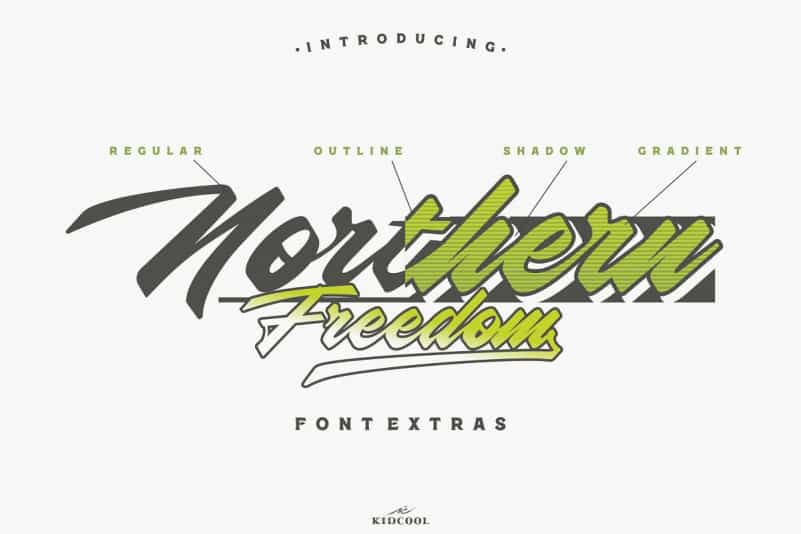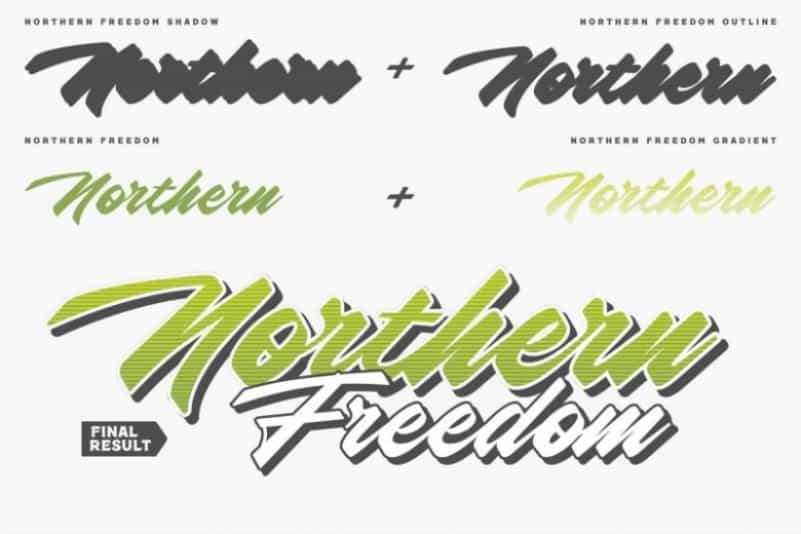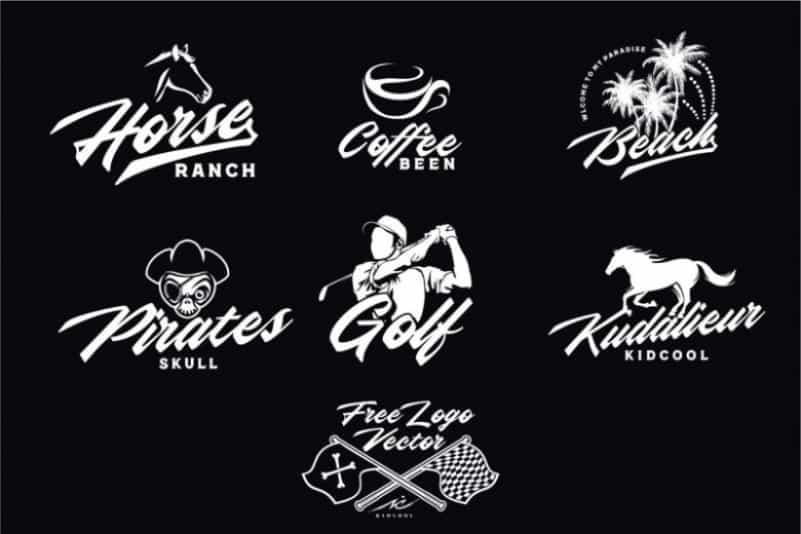
Discover Northern Freedom Script Font, part of the Calligraphy collection—a versatile and unique font perfect for adding a personal touch to your projects. Download it for free and enjoy crafting designs with style, from invitations to social media posts. This font is available exclusively for personal use, giving you the freedom to create without limits. Unlock your creativity with Northern Freedom Script Font today!
Introducing the Northern Font – a contemporary calligraphy script font. I trust you will like this font and these add-ons as a nice supplement to your font collection!The project is created and shared by KIDCOOL. Northern Freedom is a contemporary script font.